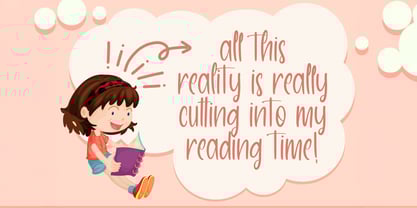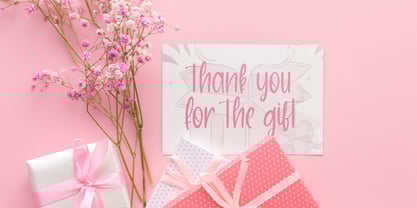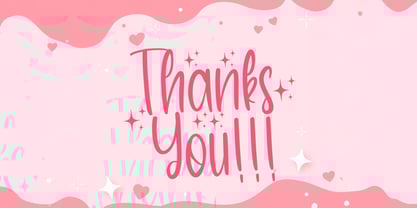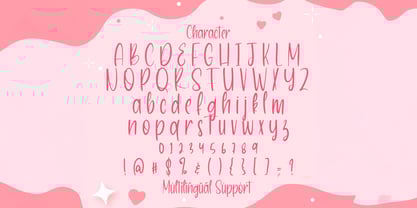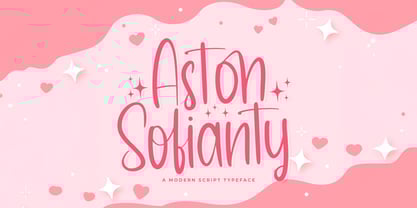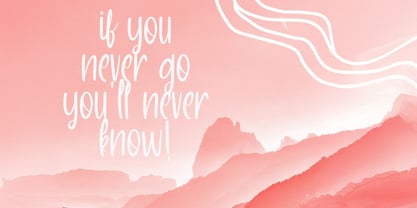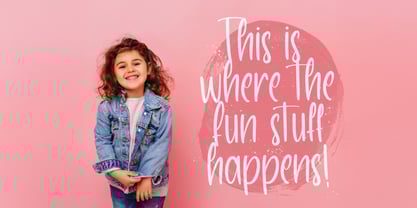
Aston Sofianty
by Stringlabs Creative Studio
The Aston Sofianty Font Family was designed by Virgiawan Listanto and published by Stringlabs Creative Studio. Aston Sofianty contains 1 styles. More about this family
Aston Sofianty is a heartfelt handwritten font that captures the beauty of natural writing with a smooth, flowing style. Its elegant curves and personal touch make it perfect for adding warmth and authenticity to your creative projects. Ideal for branding, invitations, social media, and more, Aston Sofianty brings a cozy, approachable vibe that feels both modern and timeless.
Designers: Virgiawan Listanto
Foundry: Stringlabs Creative Studio